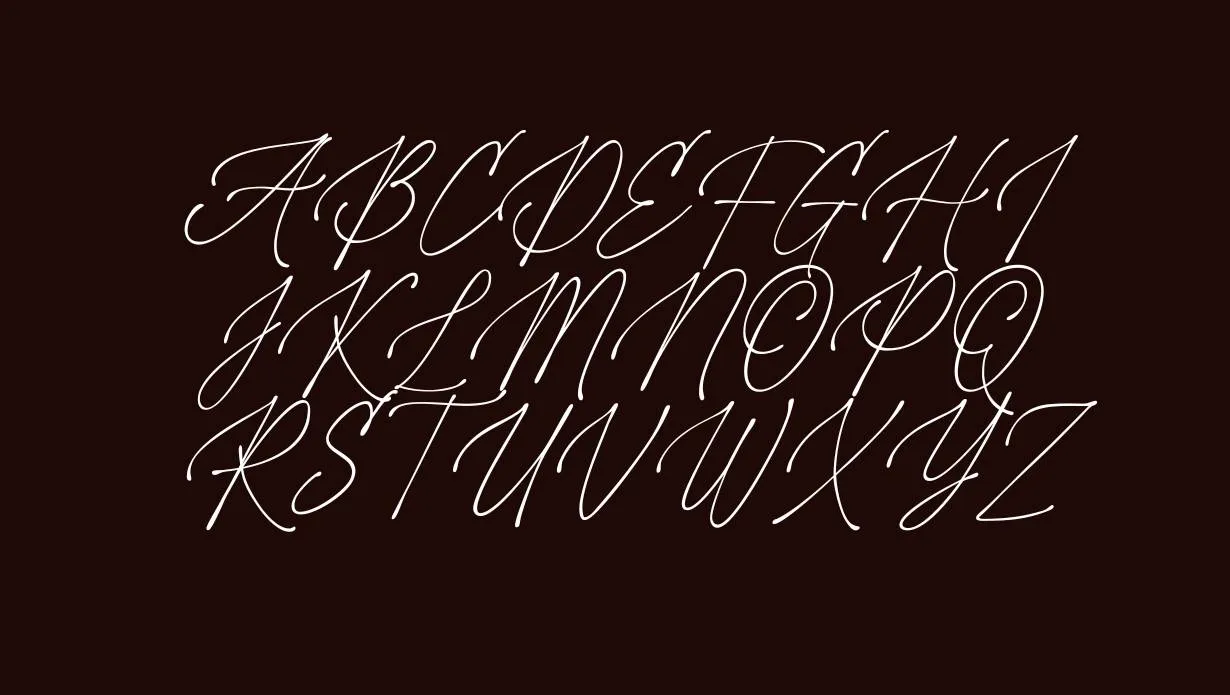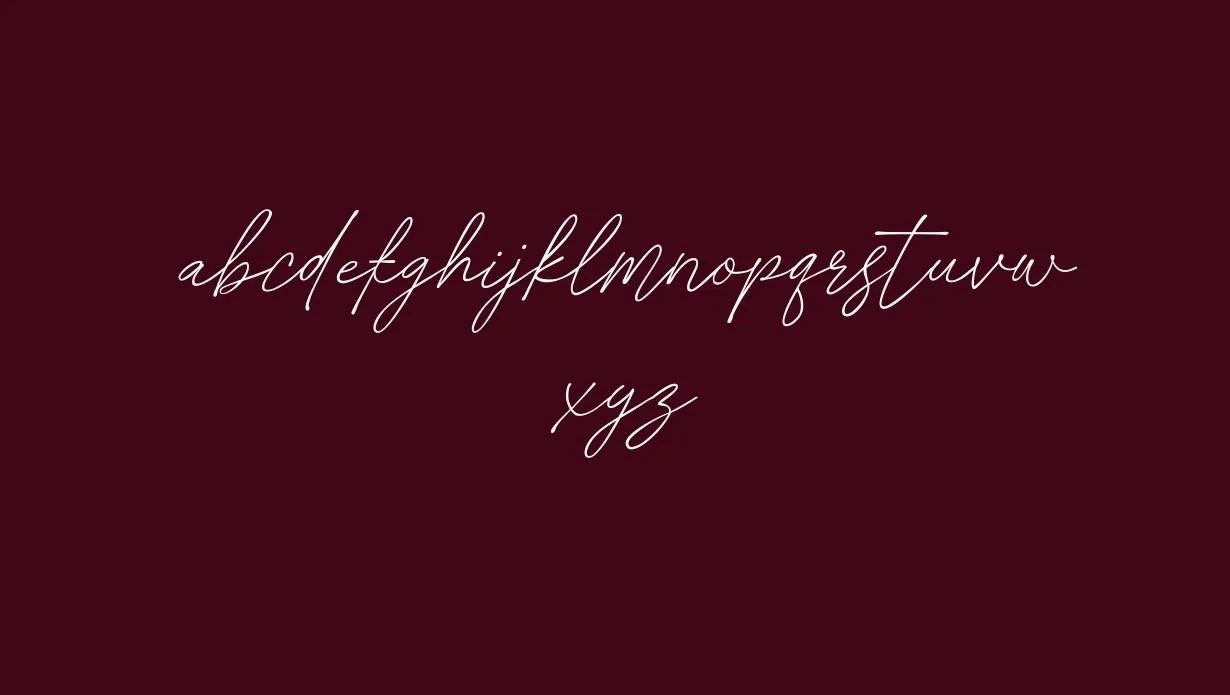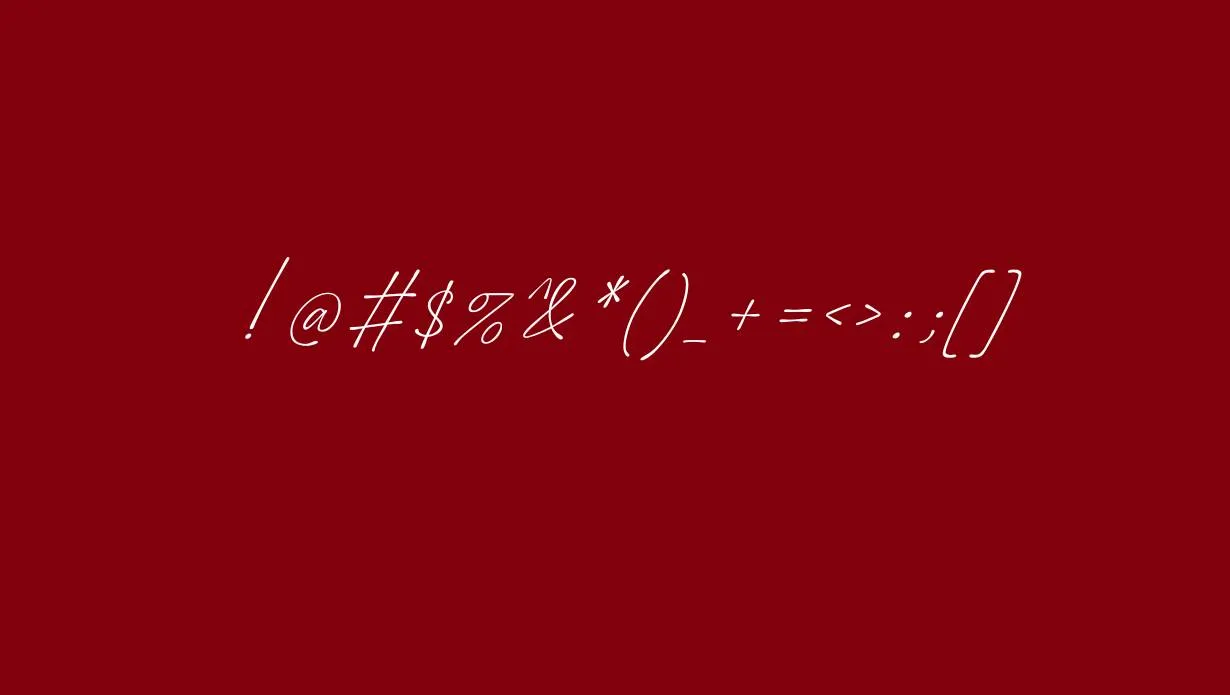
Adeptly Font belongs to the category of script texture family. This unique and elegant typeface was designed by Niskala Huruf. You can utilize this font for various projects and assignments.
| Name | Adeptly Font |
| Designer | Niskala Huruf |